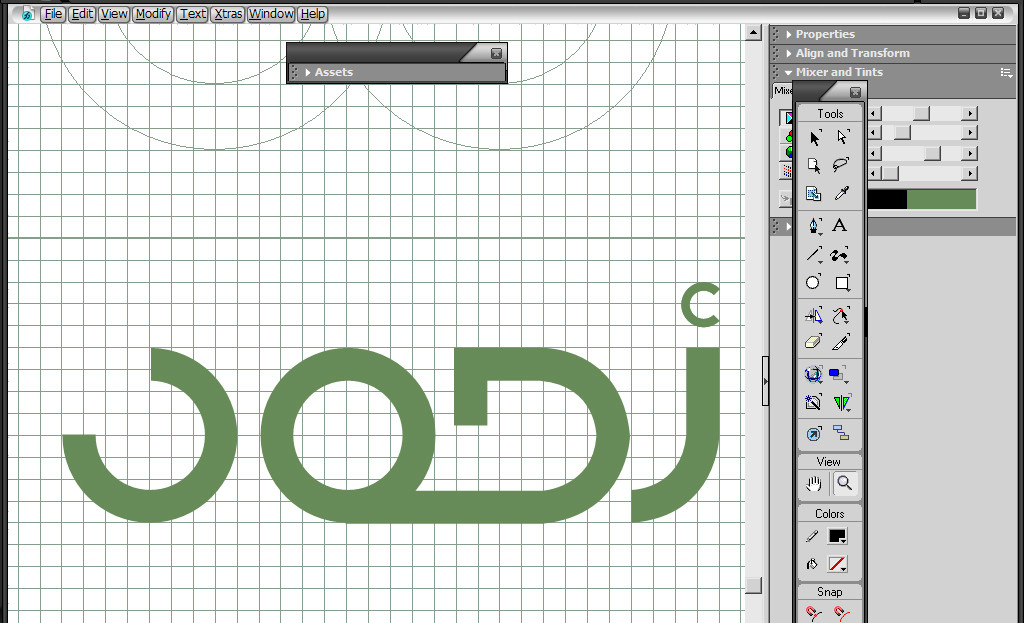
didn't name it yet.. but .. i am happy with this result as a high tech arabic fontRelated content
Will this font be available for download or purchase anytime soon?
that would be a font that kicks serious ass..amazing job man